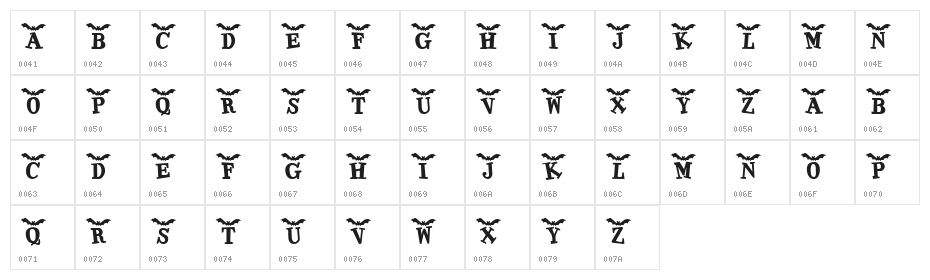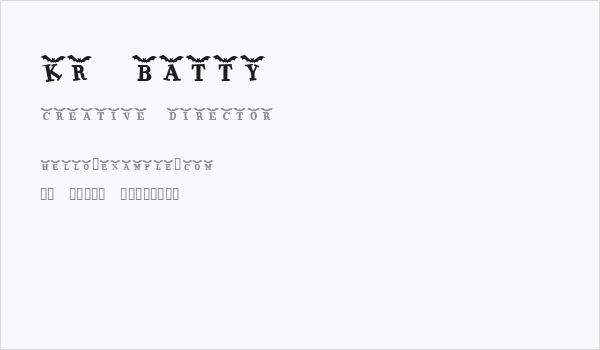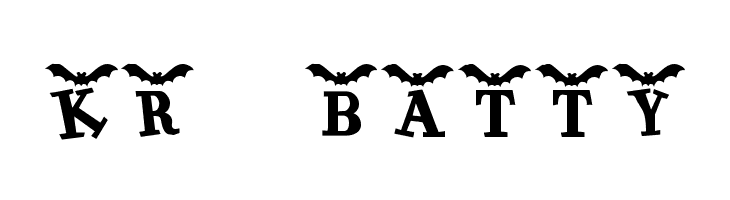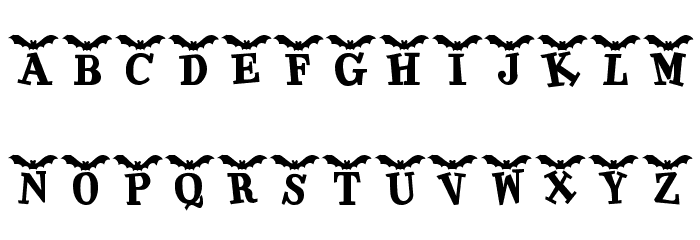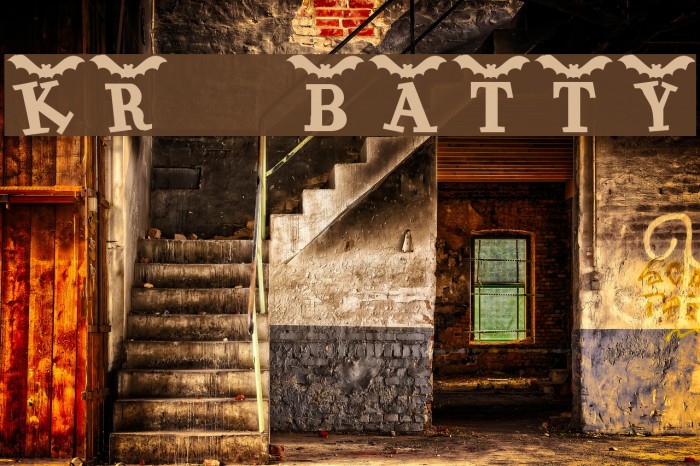
KR Batty Font
KR Batty Description
This font features a unique and playful design, incorporating bat silhouettes as decorative elements above each character. The uppercase letters are bold and slightly tilted, adding a whimsical and spooky touch. The overall style is distinctly themed, making it ideal for Halloween or other playful, eerie contexts. The characters are evenly spaced, ensuring readability despite the decorative elements. The font's boldness and distinct style make it stand out, perfect for eye-catching designs.